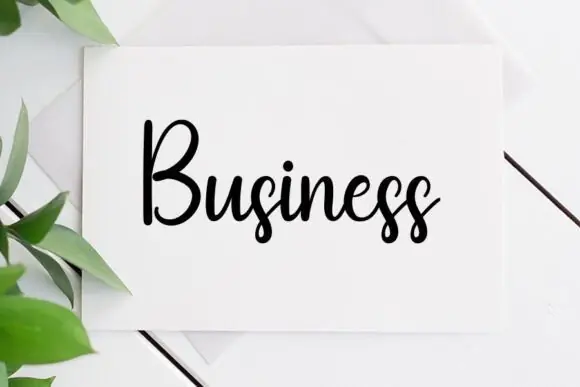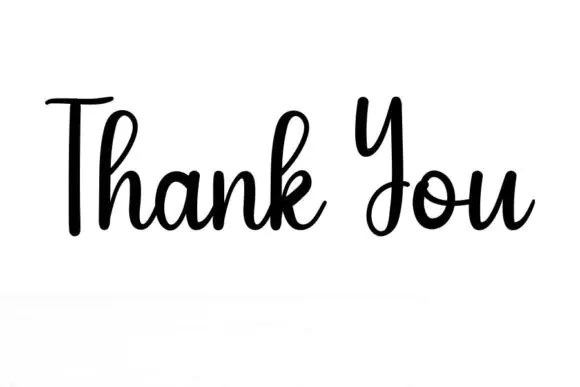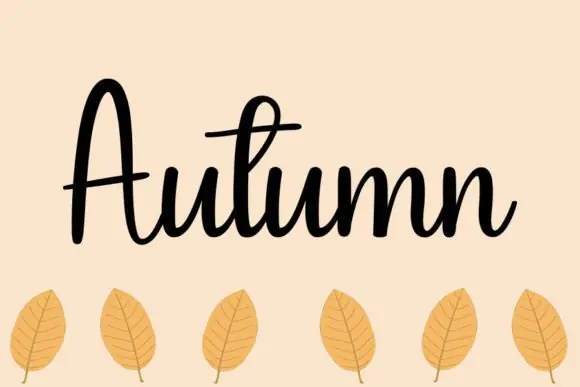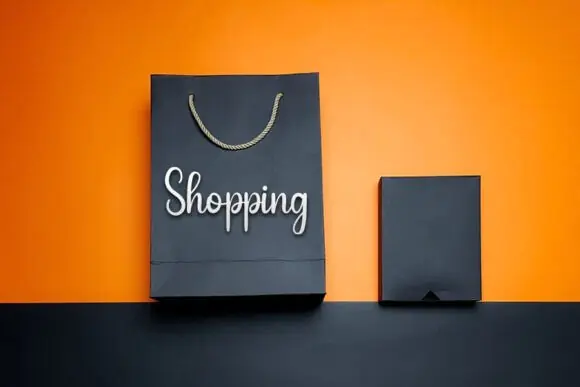
Create soft, stylish, and romantic designs with Cowboy Font, a sweet cursive handwritten typeface designed to add a gentle and elegant touch to your creative projects. Its smooth handwritten flow gives your designs a fancy yet casual appearance, making it suitable for both formal and everyday creative use.
Cowboy Font is perfect for designers, wedding creators, boutique brands, small business owners, crafters, digital sellers, and print-on-demand creators who want a charming handwritten style for their artwork. It works beautifully for branding, logos, wedding designs, greeting cards, fashion projects, lookbooks, marketing promotions, invitations, product labels, packaging, quote designs, and social media graphics.
With its joyful and romantic personality, this font helps your typography feel warm, graceful, and memorable. Whether you are creating a boutique logo, wedding invitation, greeting card, fashion layout, or promotional design, Cowboy Font gives your project a polished handwritten finish.
Design Style:
Sweet, cursive, handwritten, gentle, joyful, romantic, elegant, fancy, casual, feminine, graceful, stylish, soft, and charming.
Use Cowboy Font to give your designs a beautiful handwritten character and create typography that feels elegant, personal, and easy to love.